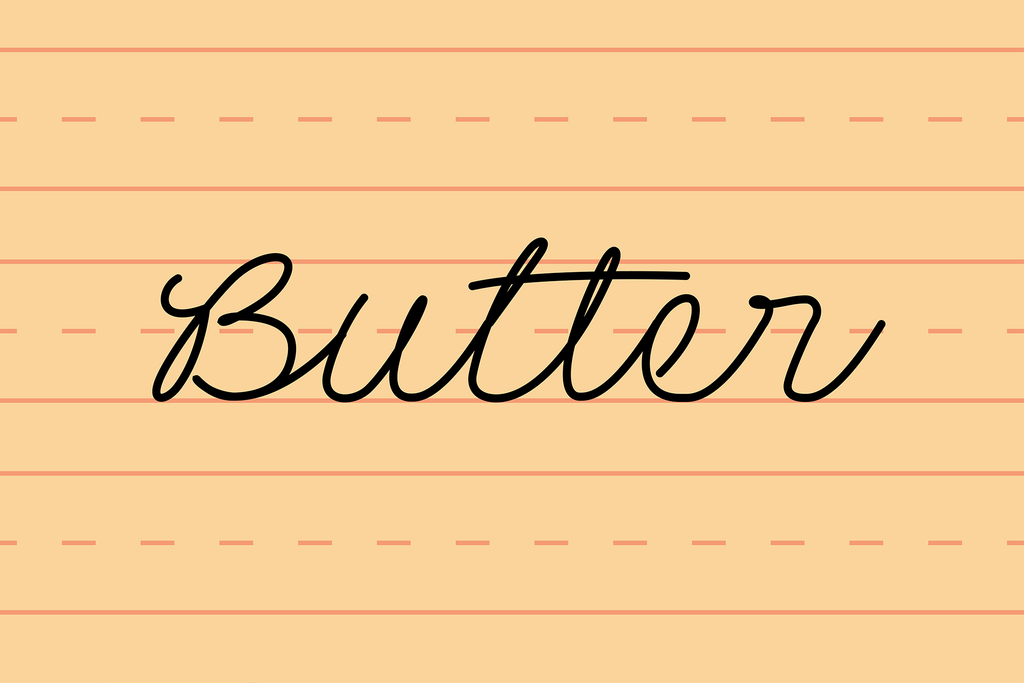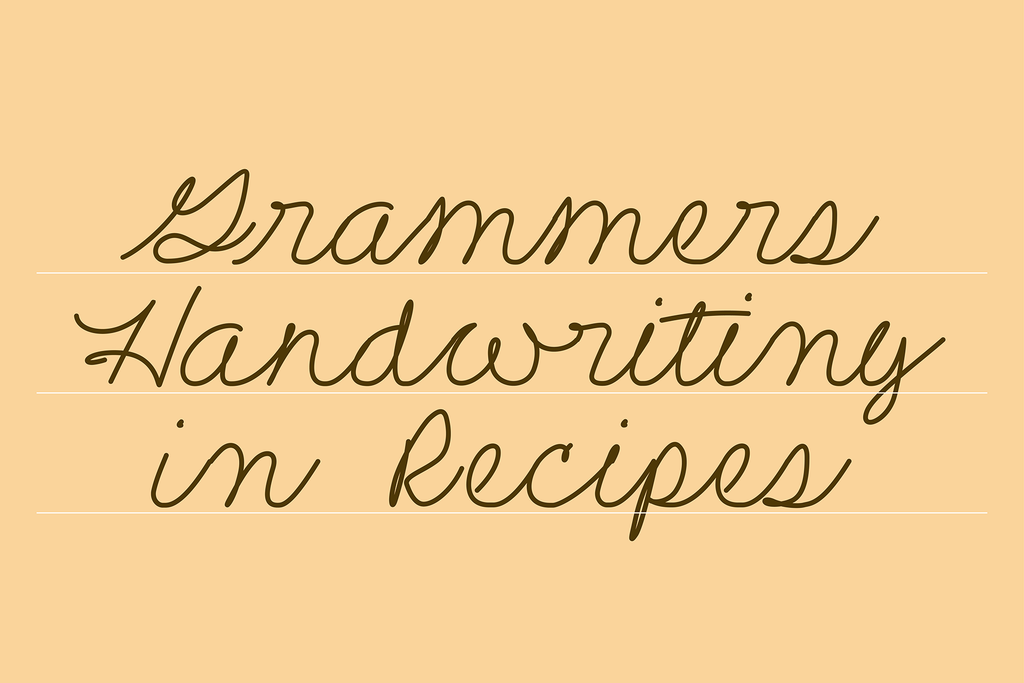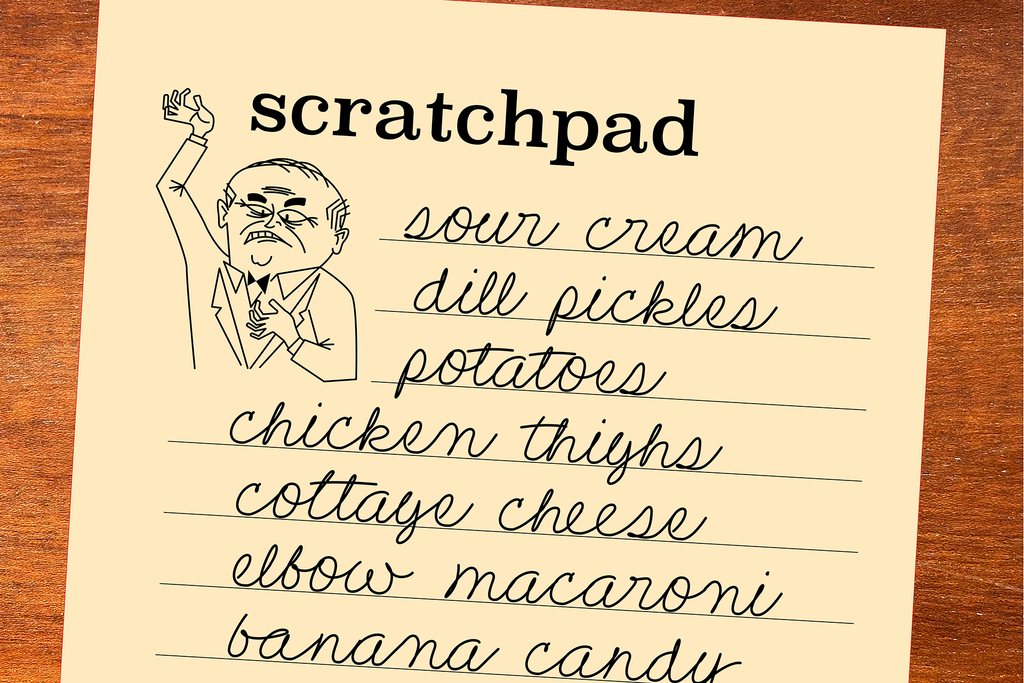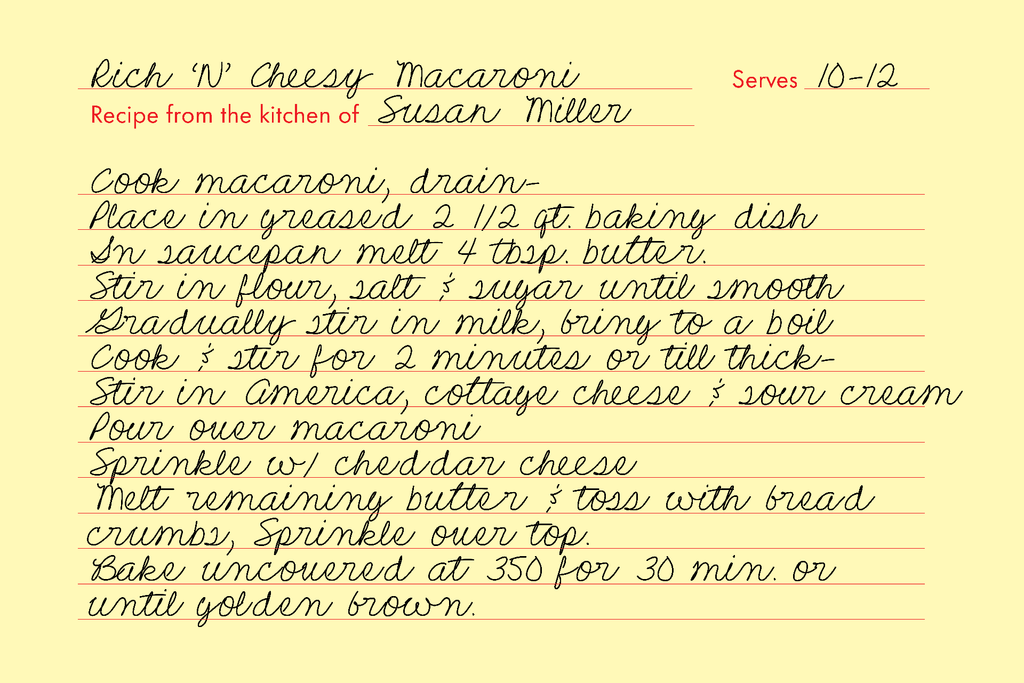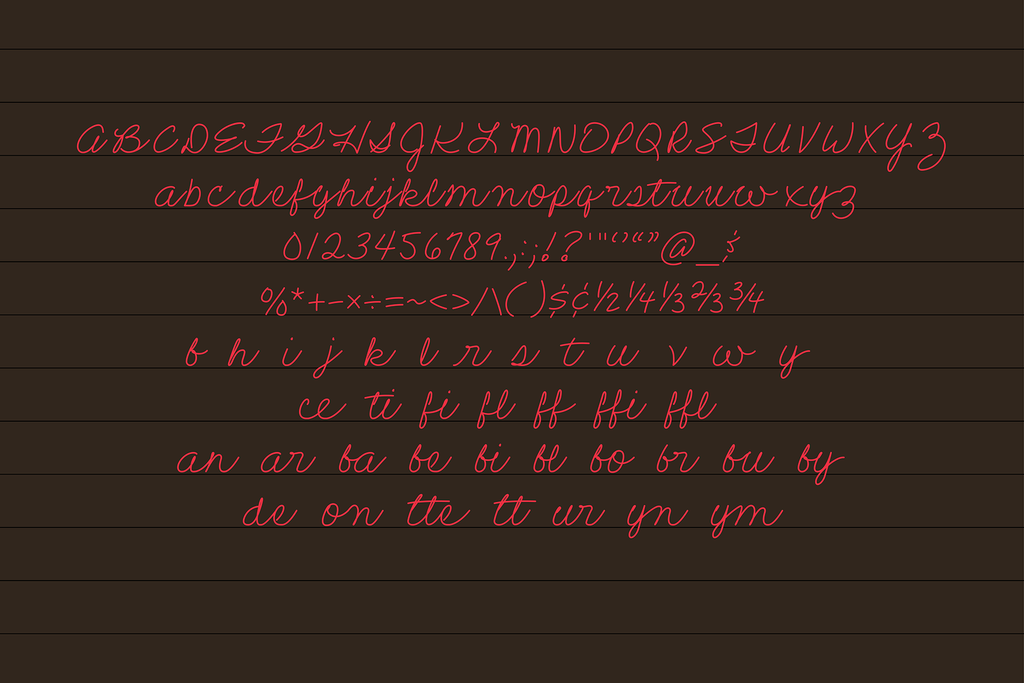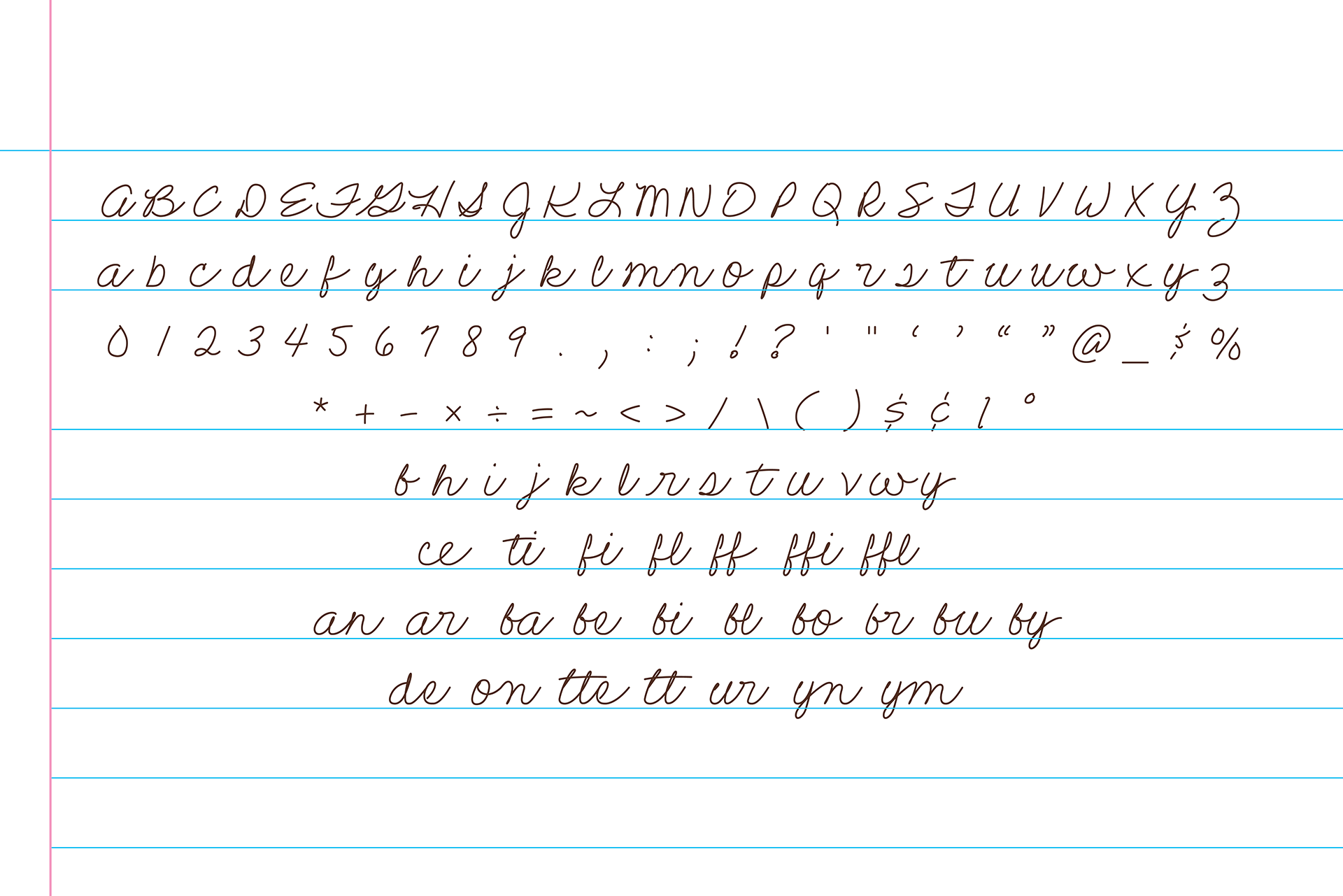
Butter Typeface
Butter is a handwritten cursive typeface built from real handwriting, designed to feel warm, natural, and effortlessly human.
The letterforms capture the irregular rhythm and softness of everyday writing—slight variations, gentle curves, and subtle imperfections that give the type its personality. Butter feels relaxed and approachable, making it ideal for projects that benefit from authenticity rather than polish.
Whether used for branding, packaging, quotes, social graphics, or editorial moments, Butter adds an expressive handwritten voice that feels personal without sacrificing legibility.
The result is a typeface that reads like a note from a friend—easy, familiar, and full of character.
Butter brings warmth and humanity to typography, turning everyday words into something a little more memorable.